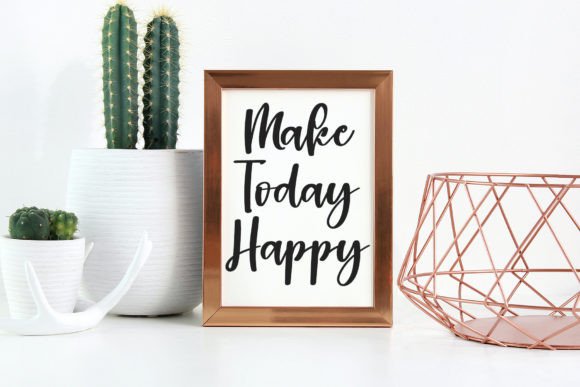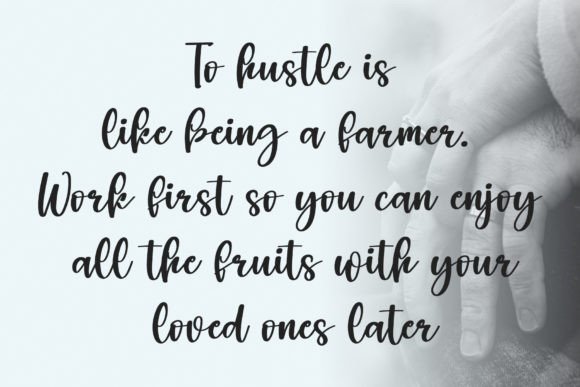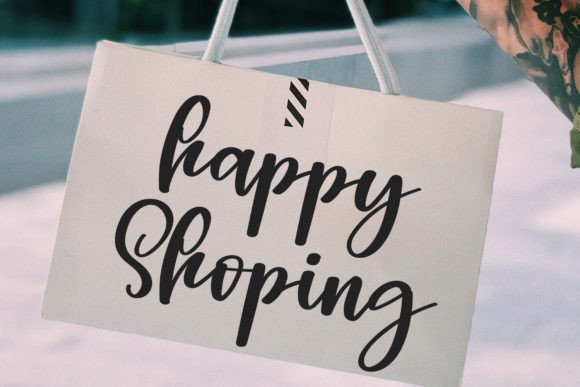
Introduction to Freelance Font
Freelance is a stylish and dainty script font.
It is suitable for any projects such as : logos, branding projects, label, photography, watermark, special events, and all your other lovely projects that need a beautiful script taste This font is PUA encoded which means you can access all of the glyphs and swashes with ease.
Key Features of Freelance Font